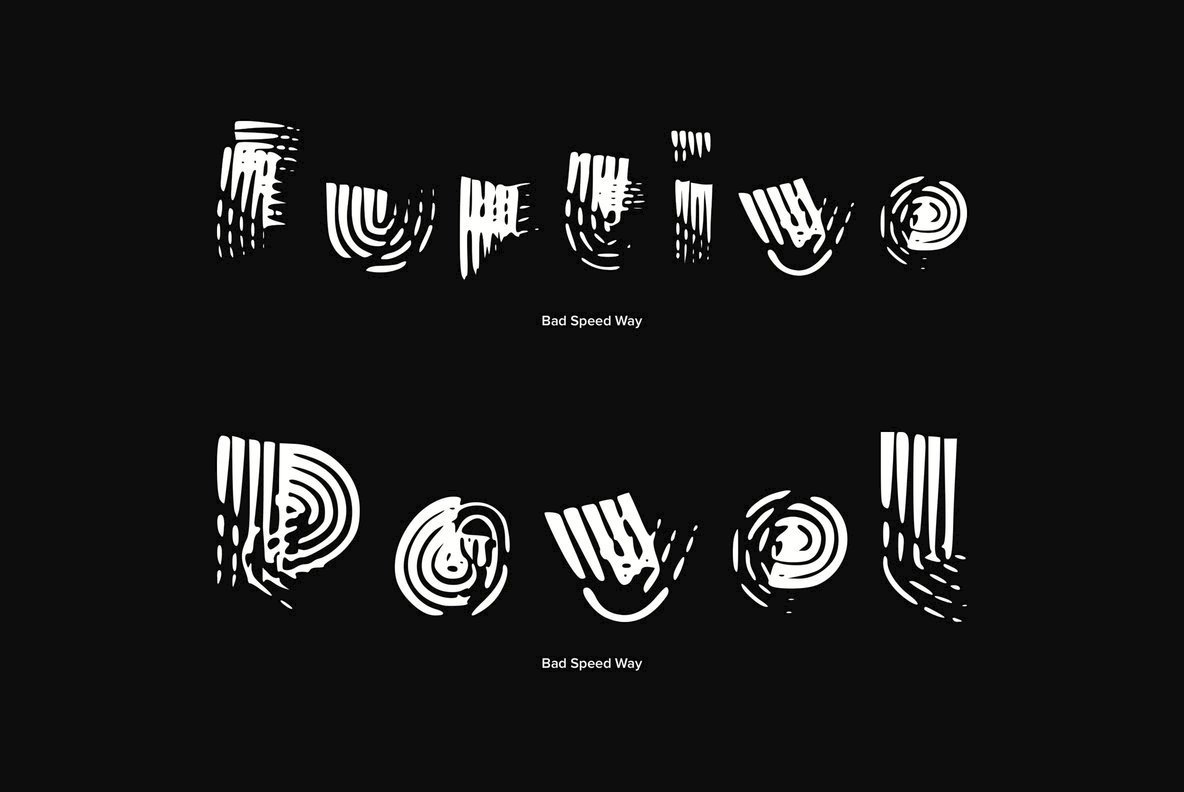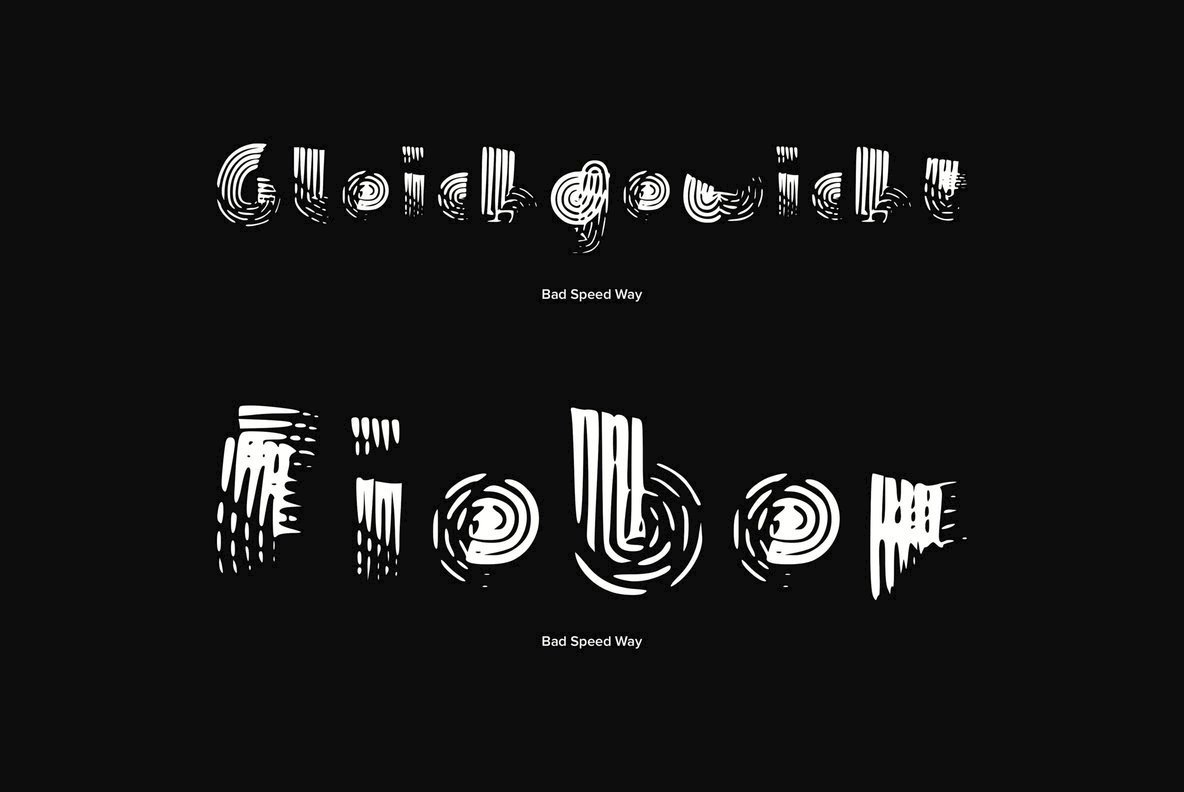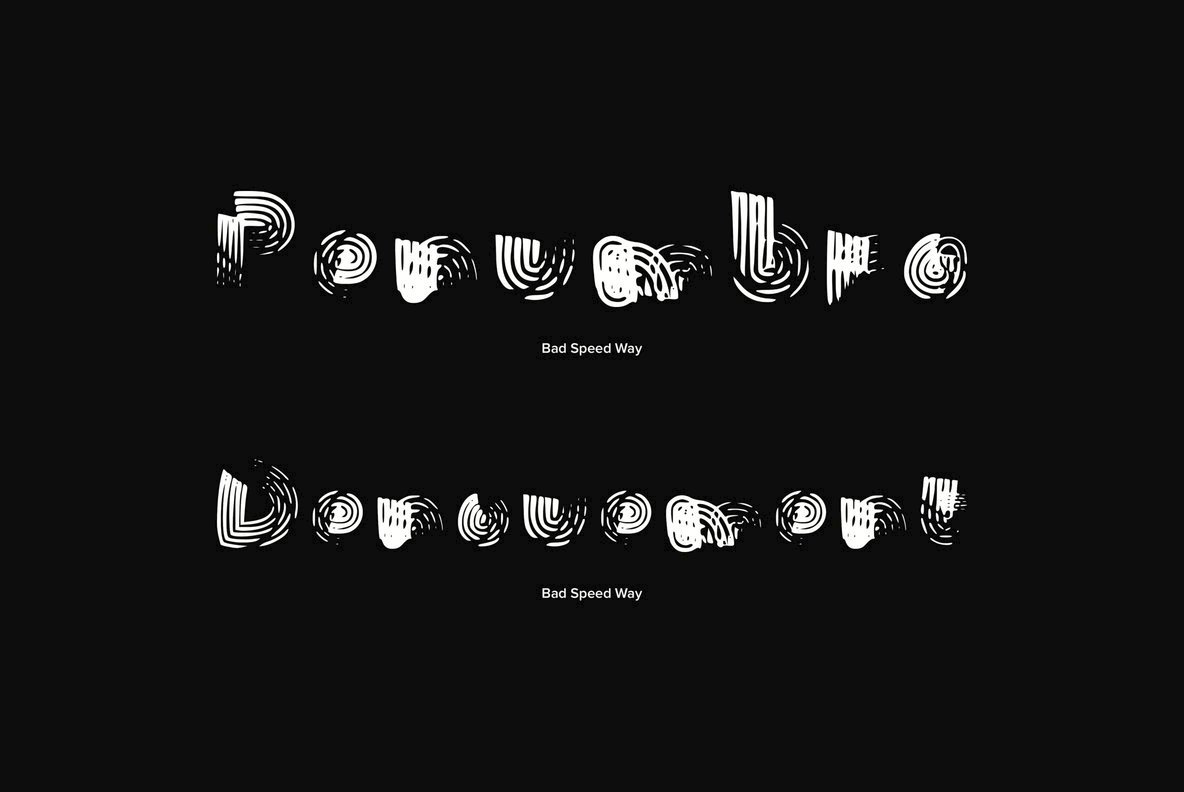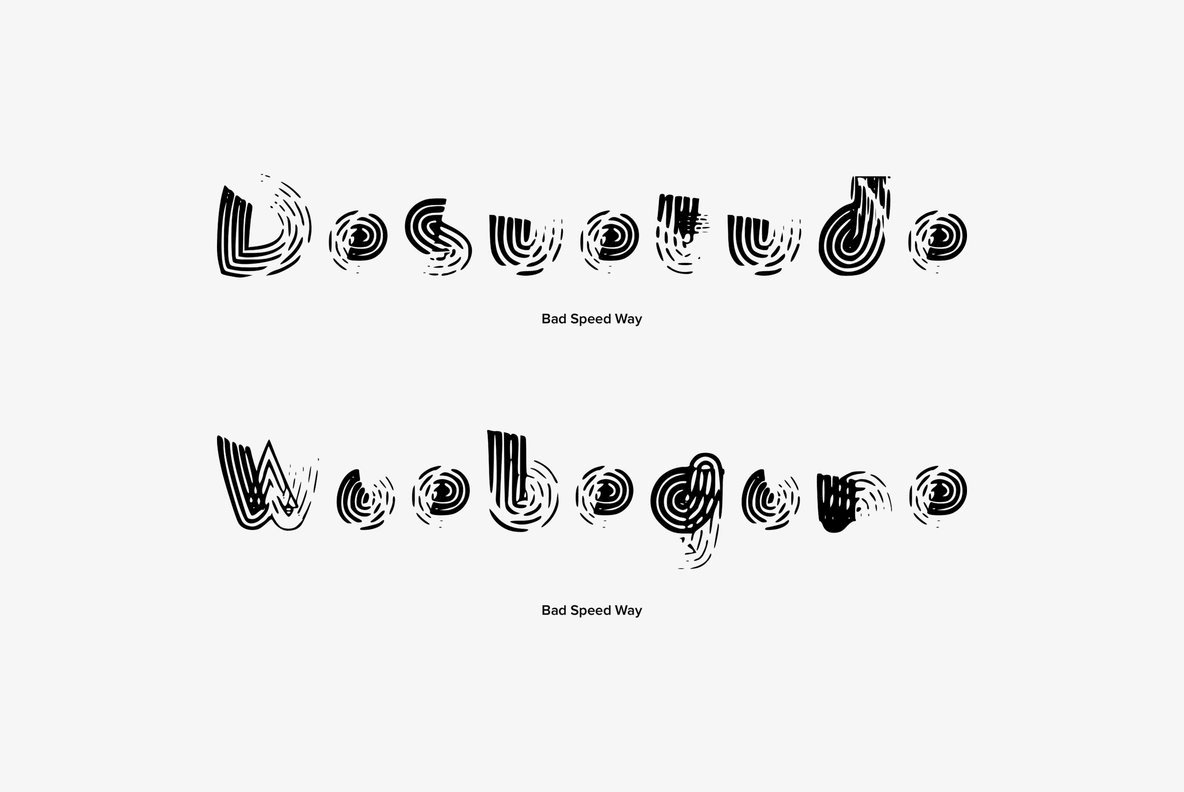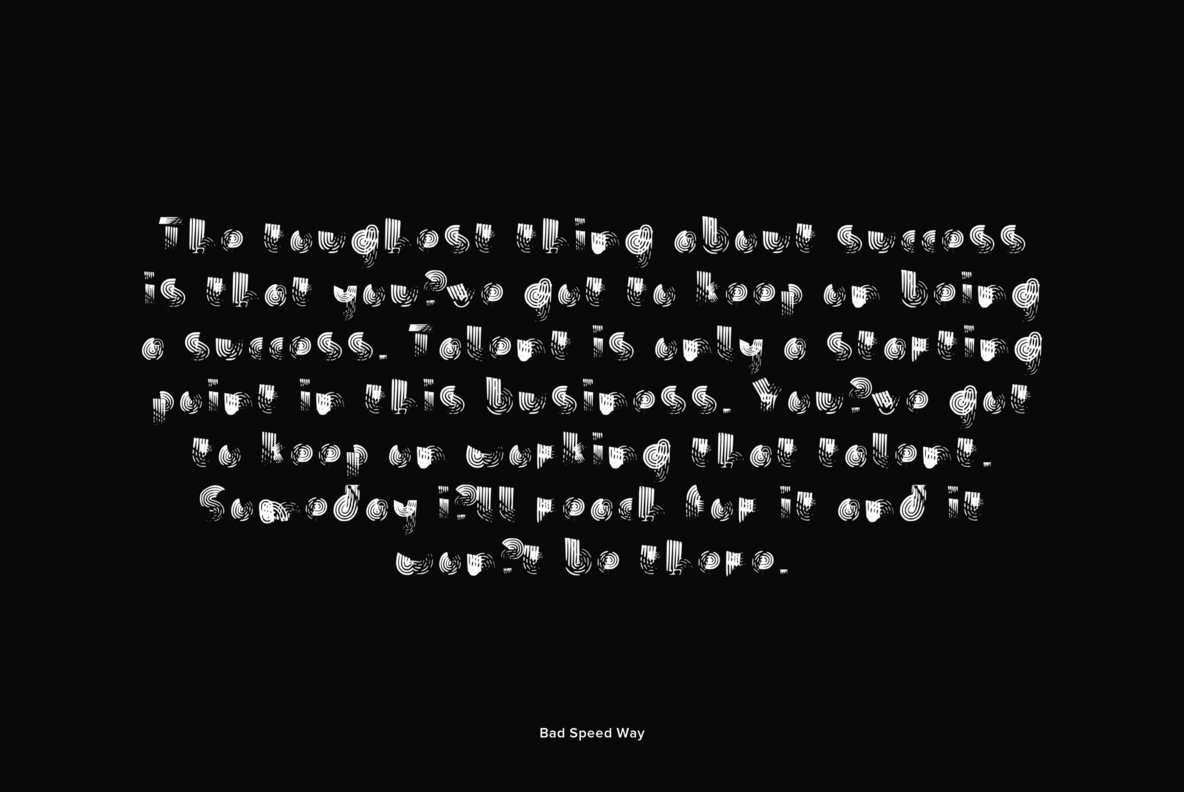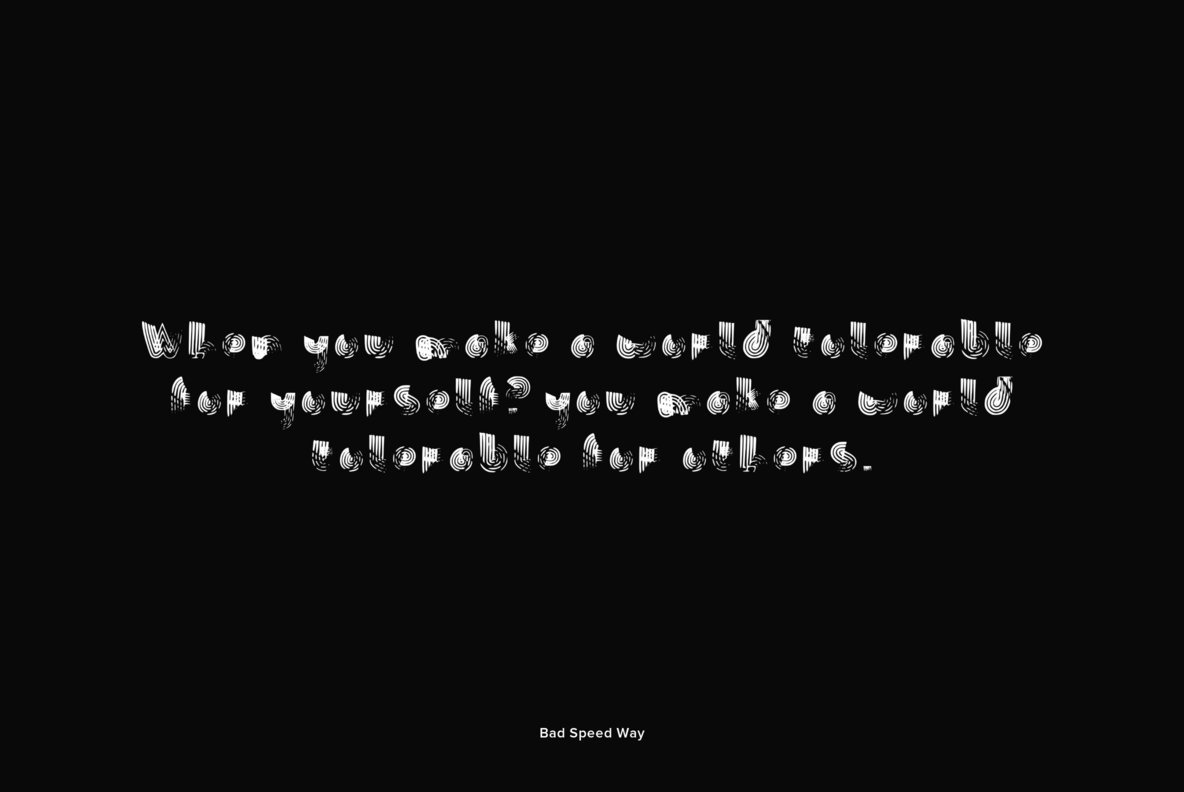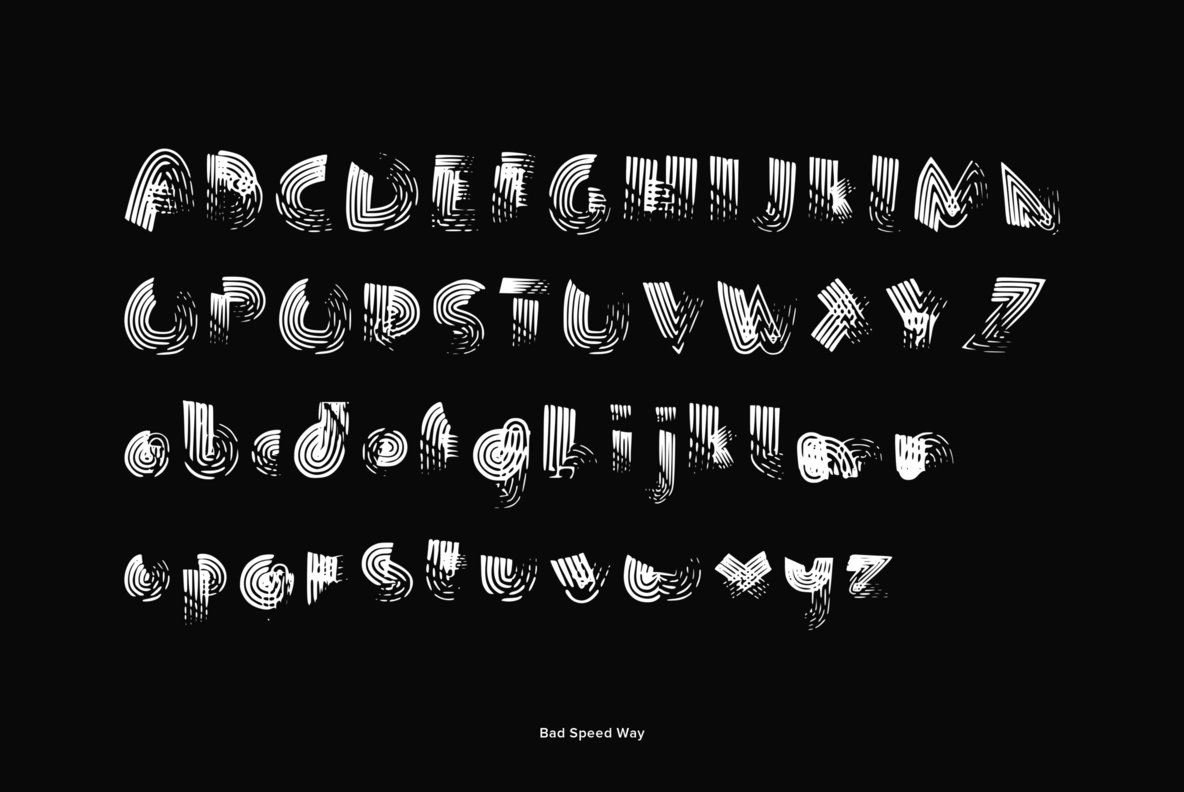
Bad Speed Way Font
Bad Speed Way
Grab your helmet and take the wheel as the world speeds by. This typeface represents the effects of speed when it meets type. Effected type born out of a high octane and pure adrenaline